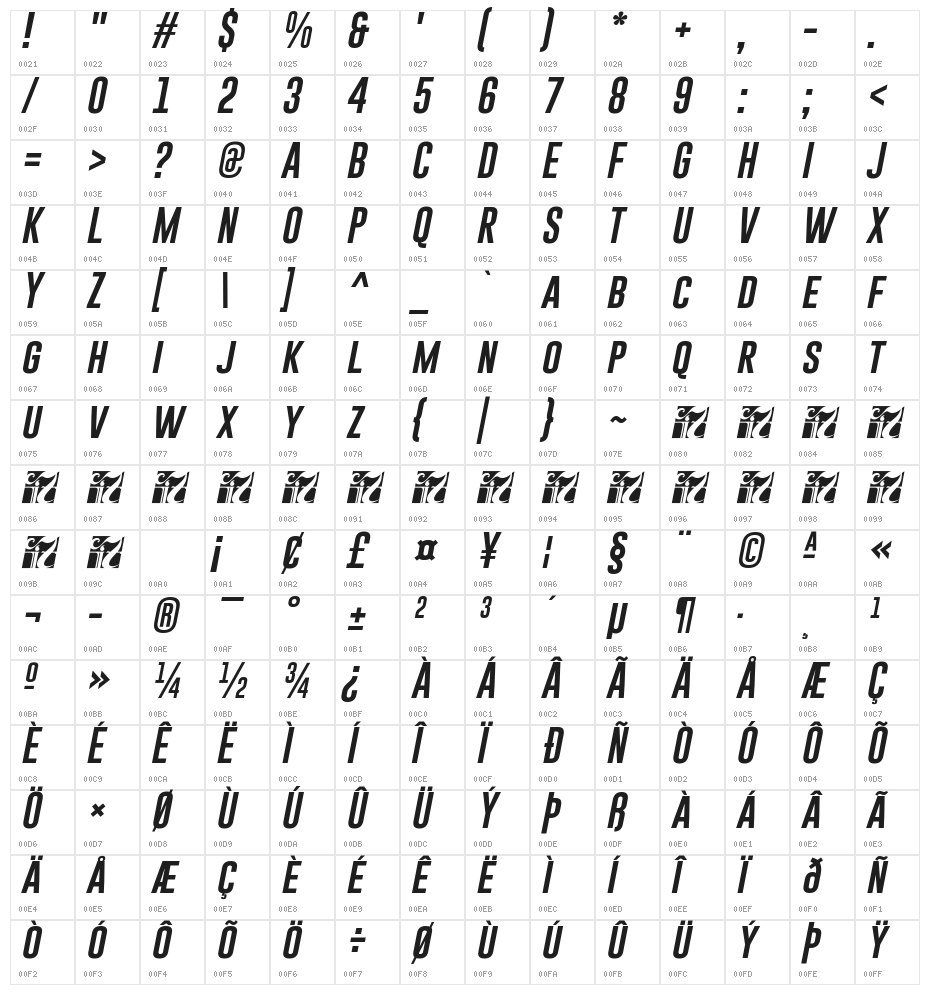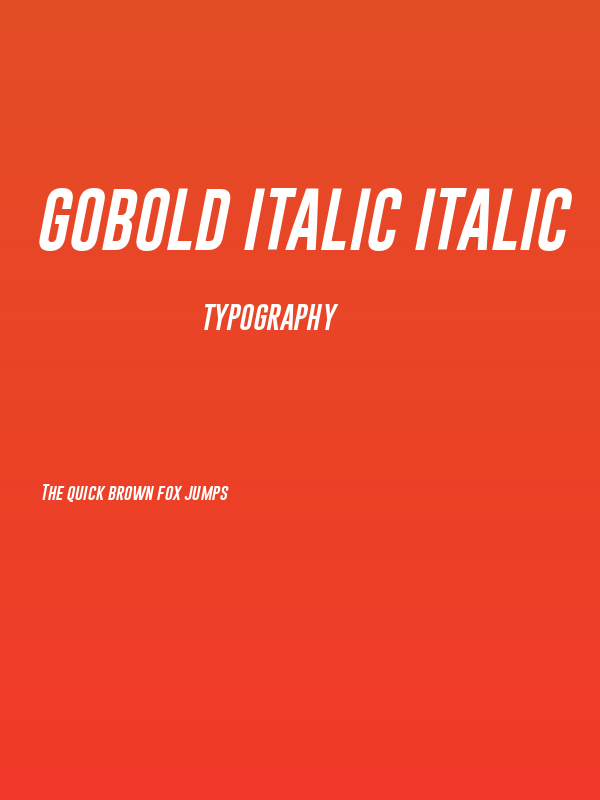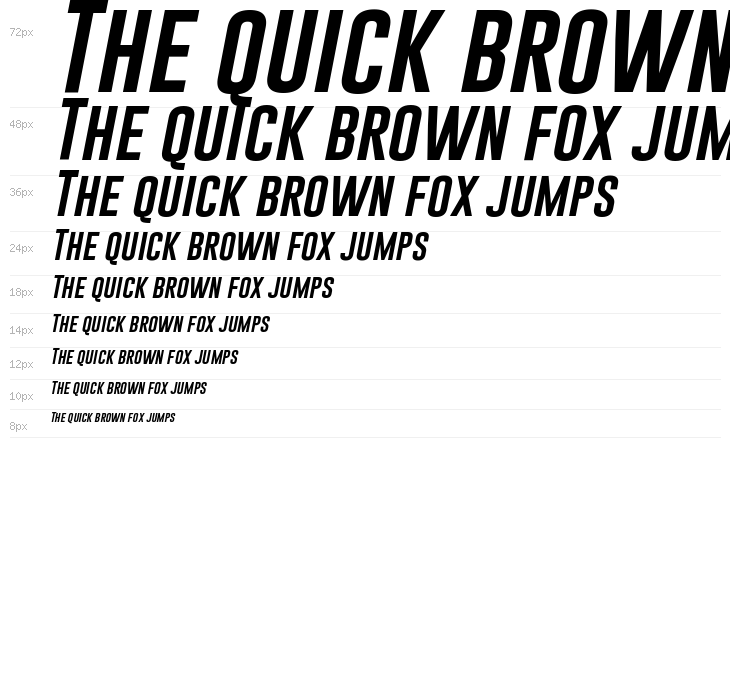
Gobold Italic Italic Font
Gobold Italic Italic Description
This font exhibits a bold and dynamic style with a pronounced italic slant, giving it a sense of motion and energy. The characters are tall and narrow, contributing to a condensed appearance that maximizes vertical space. The strokes are consistent in thickness, providing a uniform look across all characters. The uppercase and lowercase letters maintain a cohesive design, while the numerals are clear and legible. Special characters are included, matching the overall aesthetic. The font's modern and sleek design makes it suitable for projects that require a strong visual impact.
| Proposed Projects | Ideal for sports branding, dynamic posters, modern advertising, and impactful headlines. |